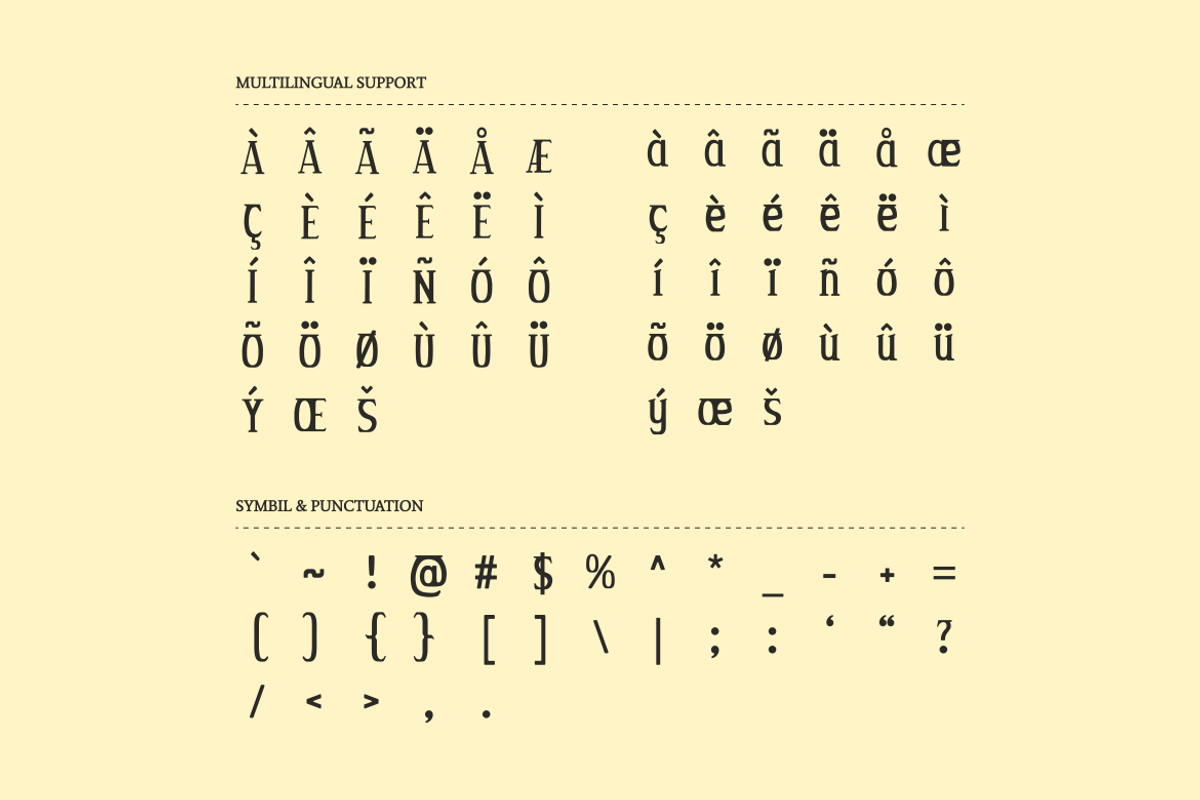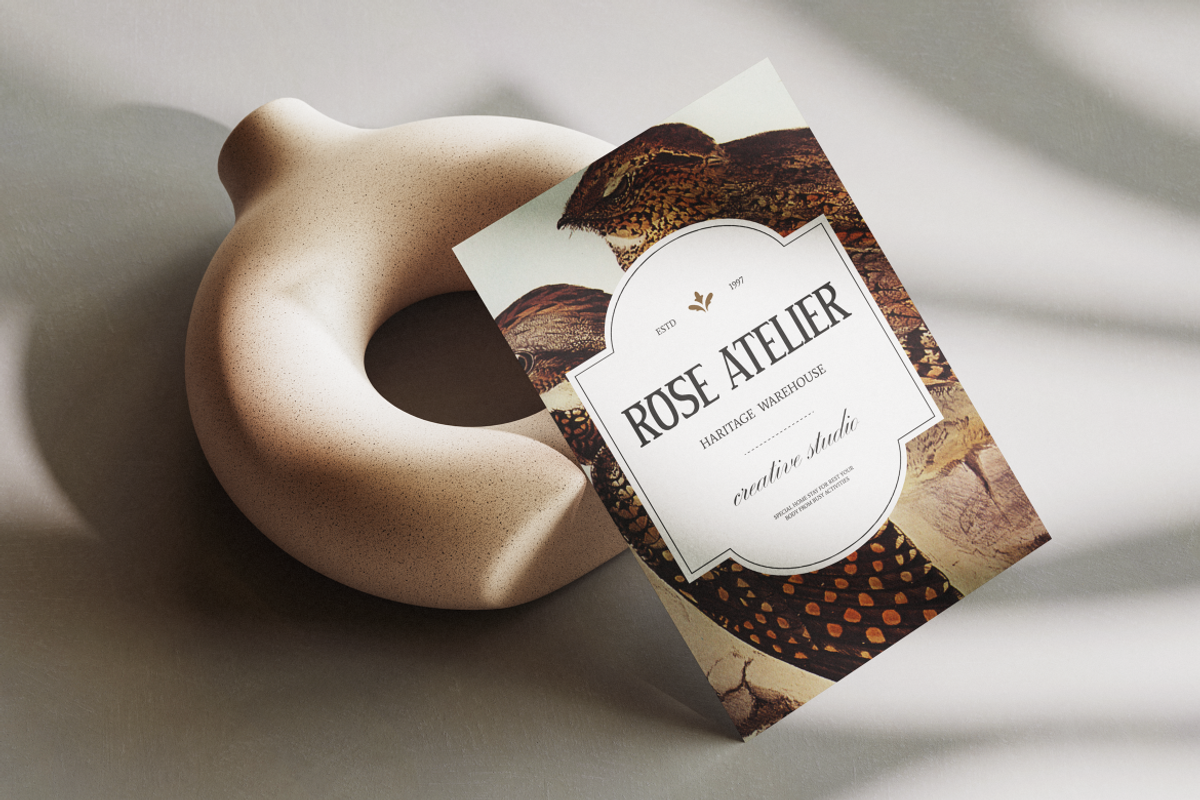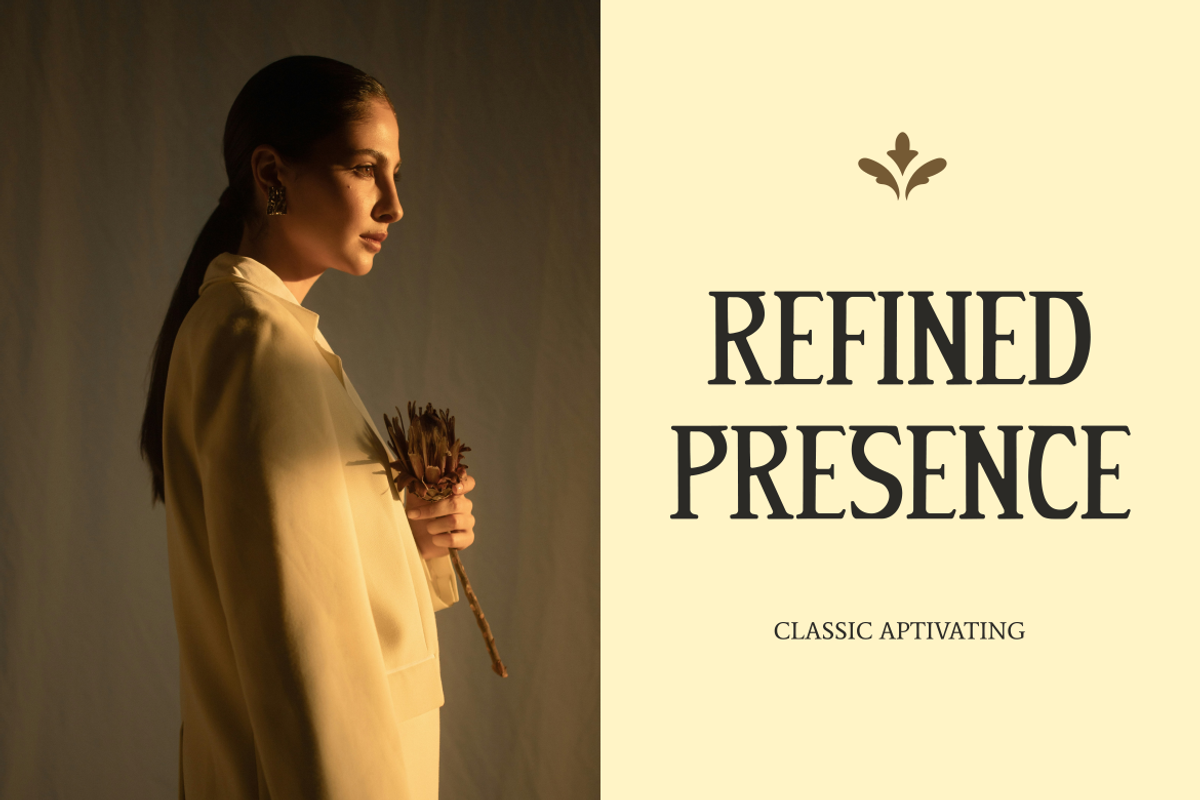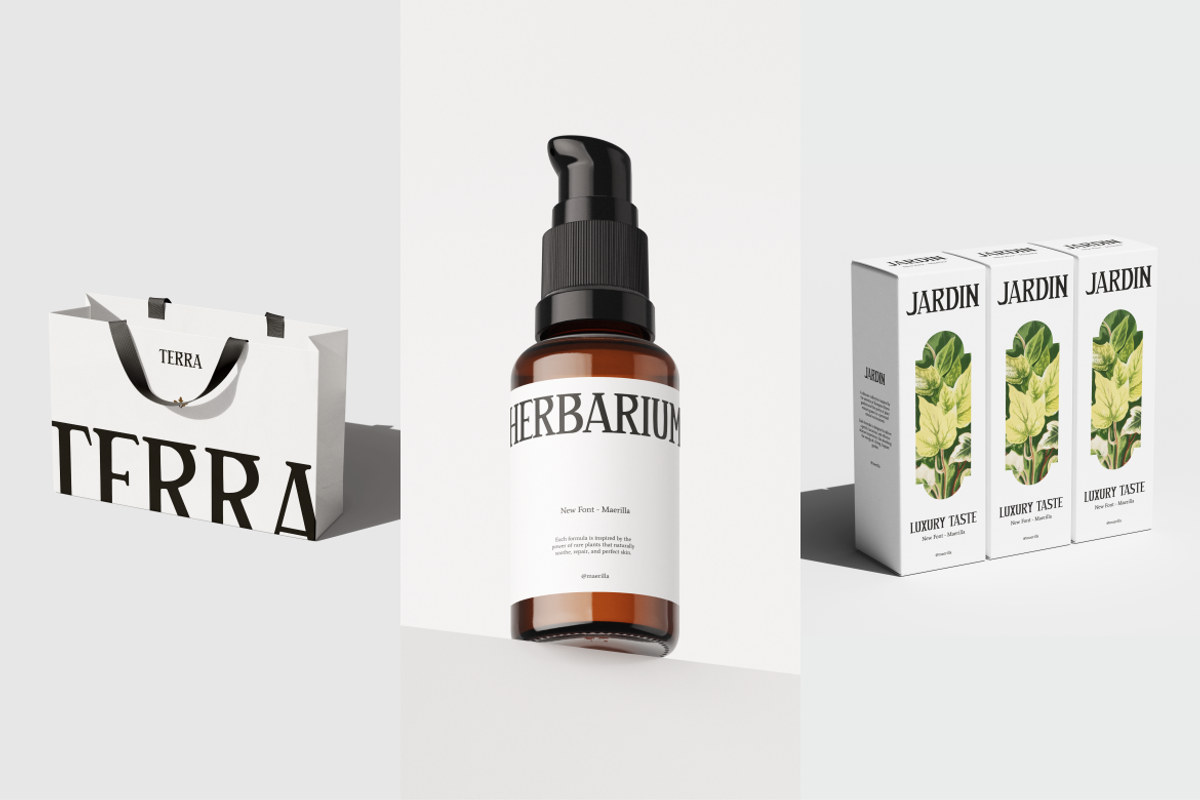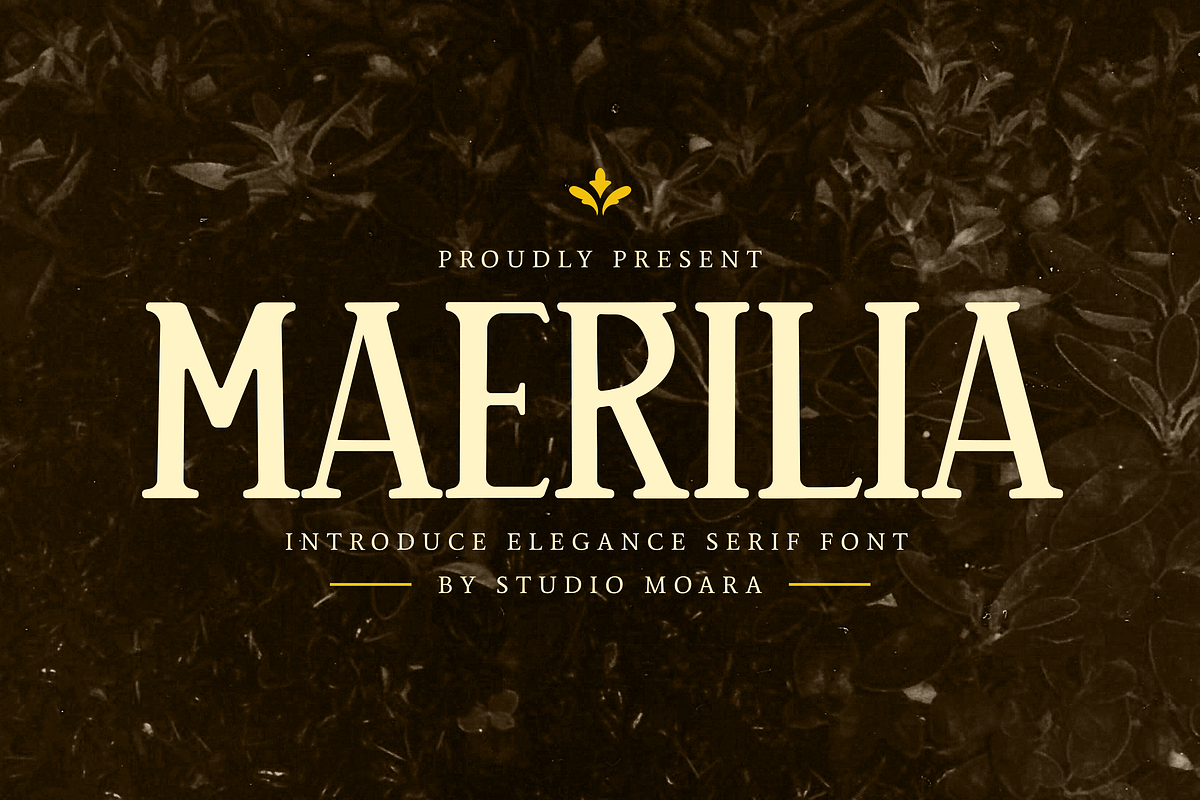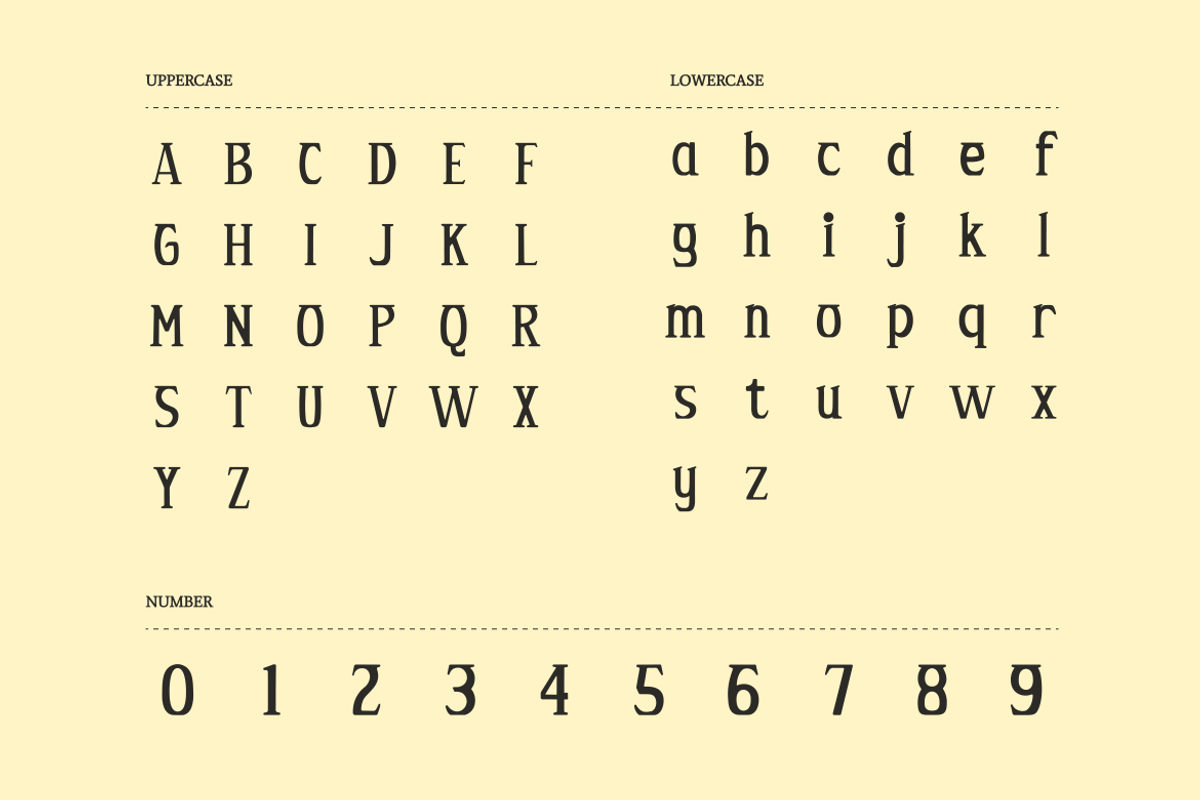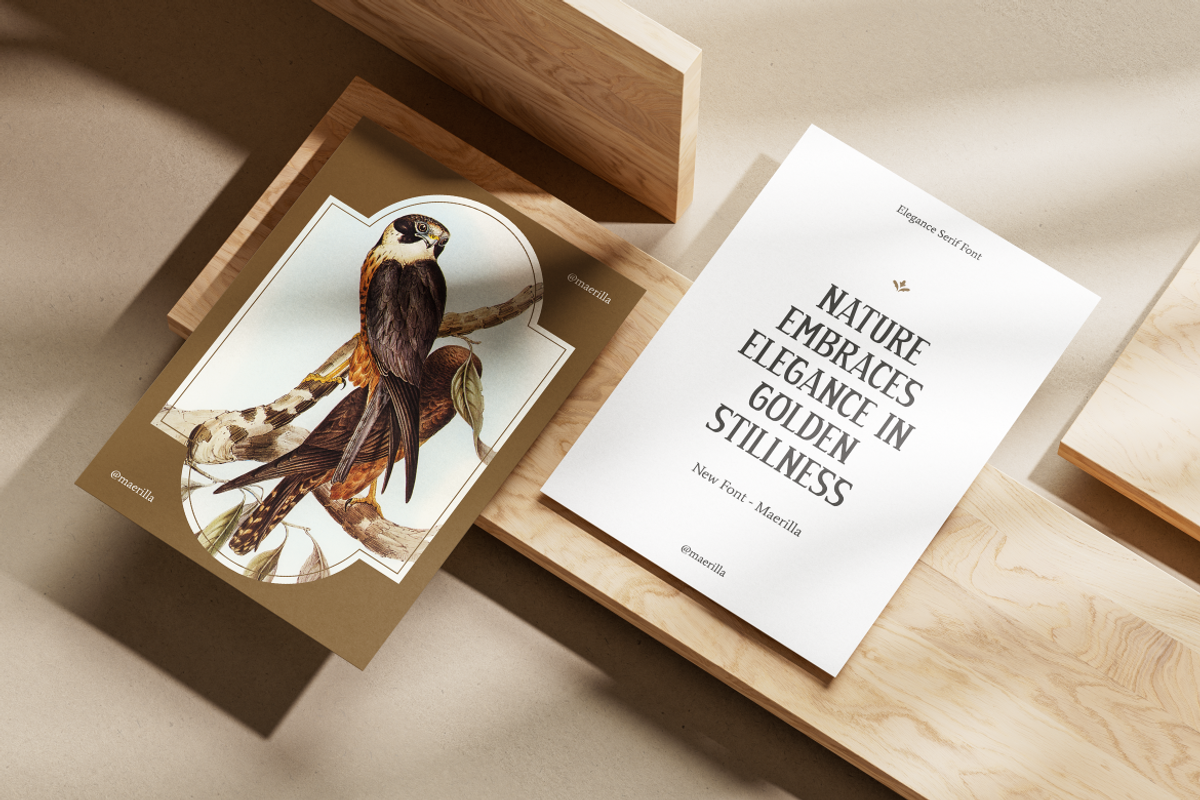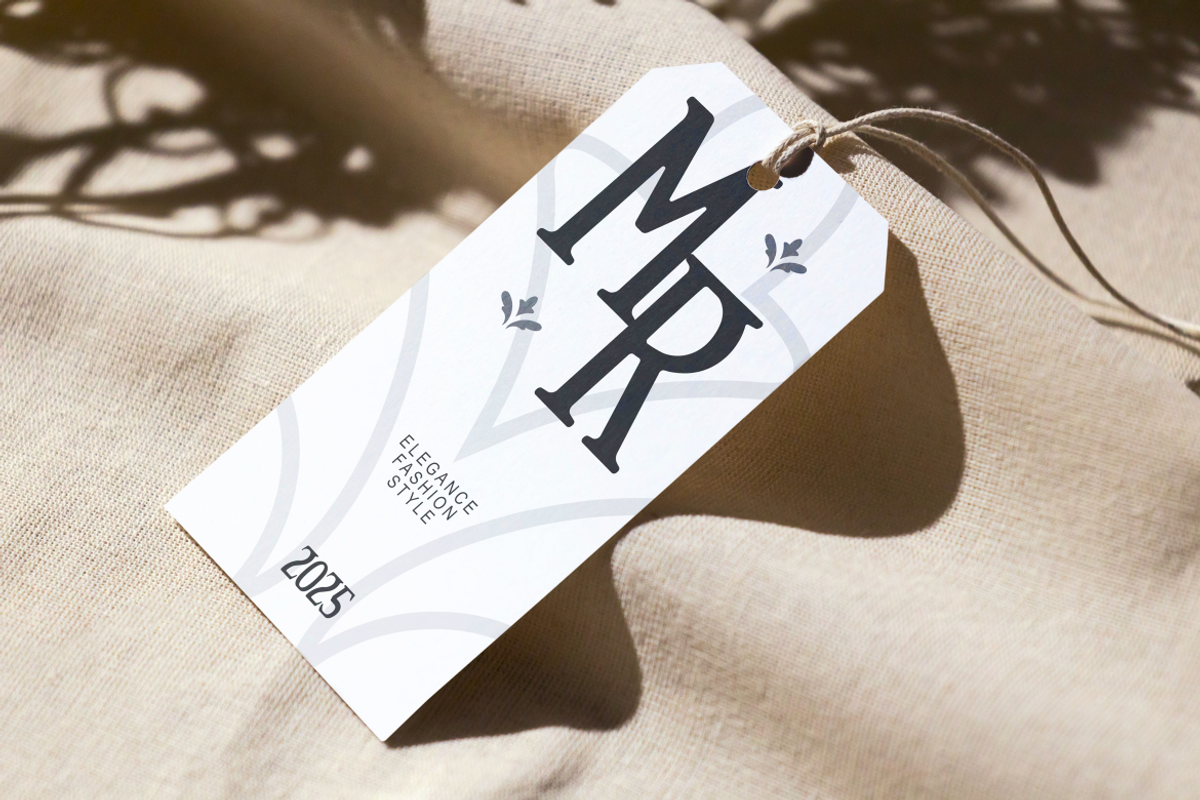
Maerilia – Vintage Serif Font
Maerilia is an elegant serif font crafted for luxury branding, editorial design, invitations, and timeless visual identities. Its refined curves and classic sophistication bring a premium vintage-inspired feel to any project. Perfect for logos, packaging, fashion layouts, and striking headlines that seek elegance, tradition, and sophisticated presentation.